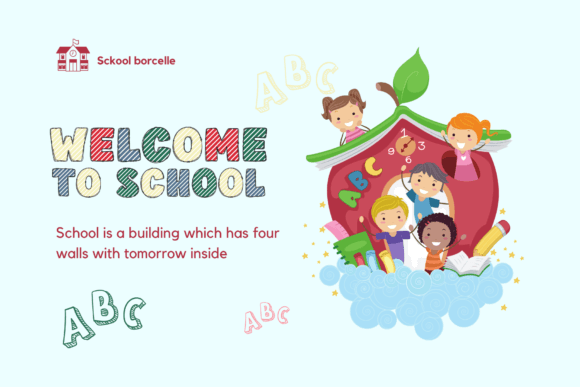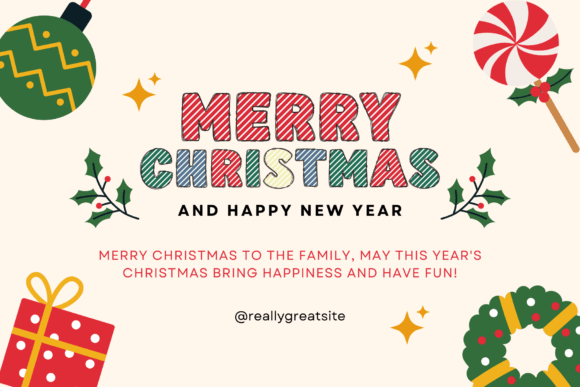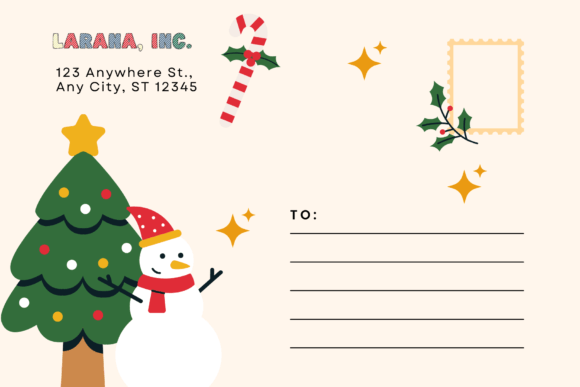
Introduction to Fox Xmas-v5 Font
As the holiday season approaches, designers are on the lookout for that special something to make their creative projects truly shine. Whether it’s a festive greeting card, a beautiful invitation, or a social media post that captures the magic of Christmas, the right font can make all the difference. That’s where the Fox Xmas-v5 Font comes in – a delightful, high-quality font that’s perfect for adding a touch of festive cheer to your designs.
This adorable color font is a design resource that’s sure to bring joy to your creative projects. With its authentic feel and transparent background, it’s the perfect addition to any design. Whether you’re working on a free download or a paid project, the Fox Xmas-v5 Font is a valuable asset that’s sure to elevate your designs and make them stand out from the crowd.
Key Features of Fox Xmas-v5 Font
- High-quality design resource for creative projects, perfect for holiday-themed designs.
- Unique, festive design that adds a touch of holiday magic to any creative project.
- Designed to be versatile and easy to use, making it an excellent addition to any design resource collection.
Honest Review: Fox Xmas-v5 Font
I recently came across the Fox Xmas-v5 Font, a free download that caught my attention for its festive feel and unique design style. As a designer, I appreciate high-quality design resources that can elevate a creative project, and this font certainly delivers.
- ✨ The font’s high-quality design and detailed craftsmanship make it perfect for a variety of creative projects, from holiday cards to gift tags.
- ✨ The transparent background makes it easy to combine with other design elements and create a cohesive look.
- ✨ The font is highly versatile and can be used in a range of contexts, from formal to informal.
- ⚠️ The font is only available in a limited number of languages, which may be a concern for designers working on projects that require multilingual support.
- ⚠️ The font’s unique design style may not be to everyone’s taste, and some designers may find it too ornate or busy.
Overall, I’m impressed with the Fox Xmas-v5 Font and would definitely recommend it to designers looking for a high-quality, festive font for their creative projects. With its unique design style and transparent background, it’s a great addition to any design resource library.
The Fox Xmas-v5 Font is perfect for holiday-themed designs, such as Christmas cards, invitations, or social media posts. You can also use the font in non-holiday designs, such as graphic novels, comics, or even branding materials.